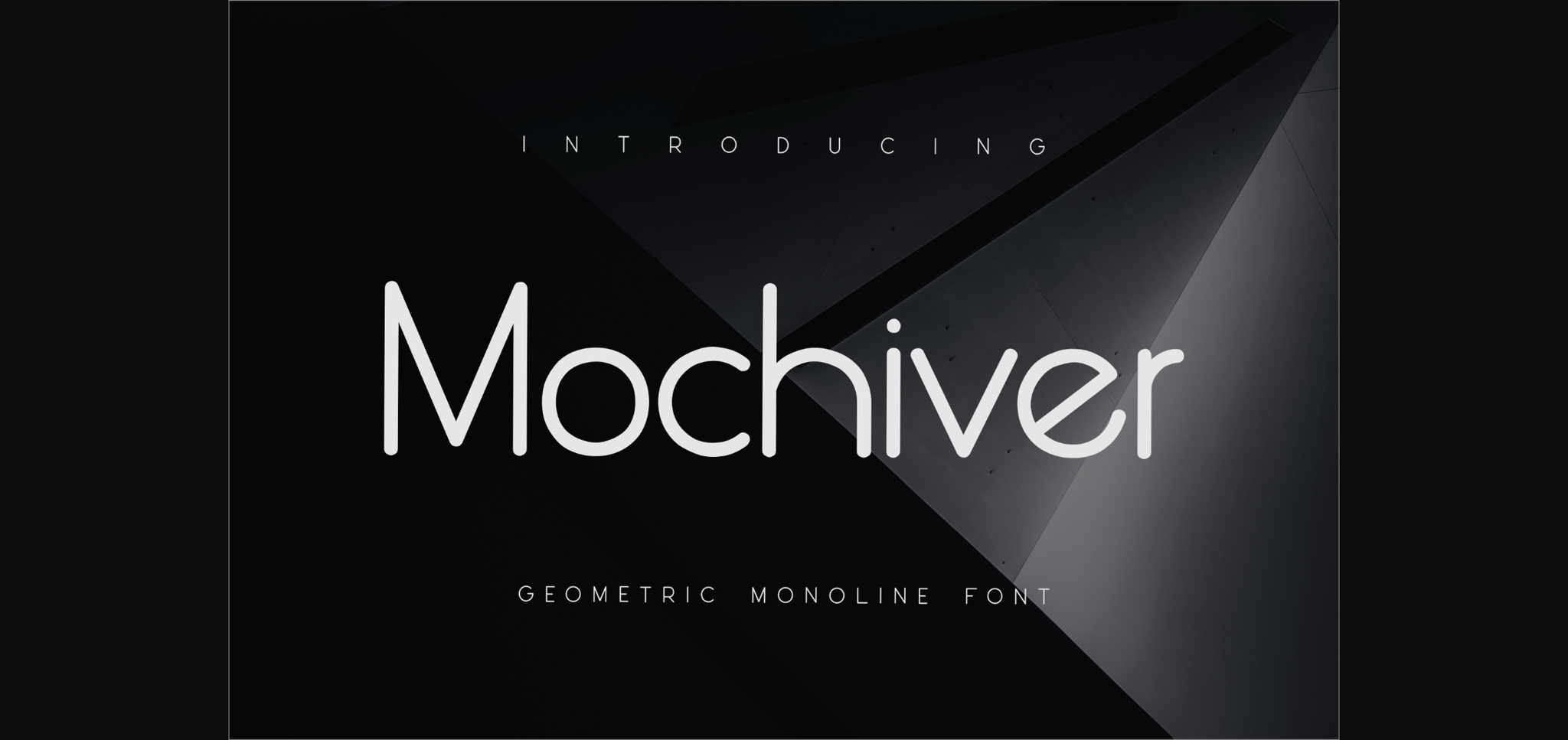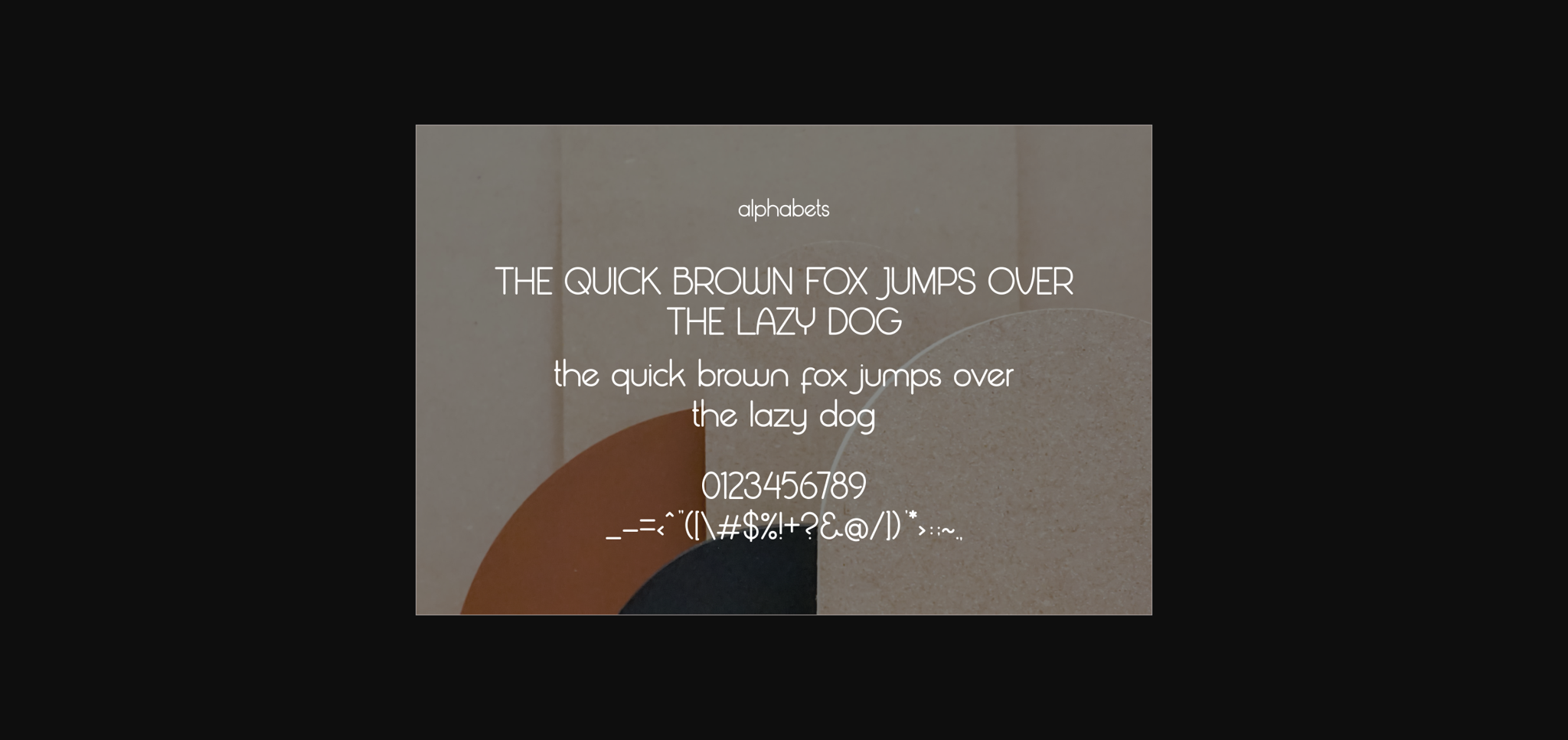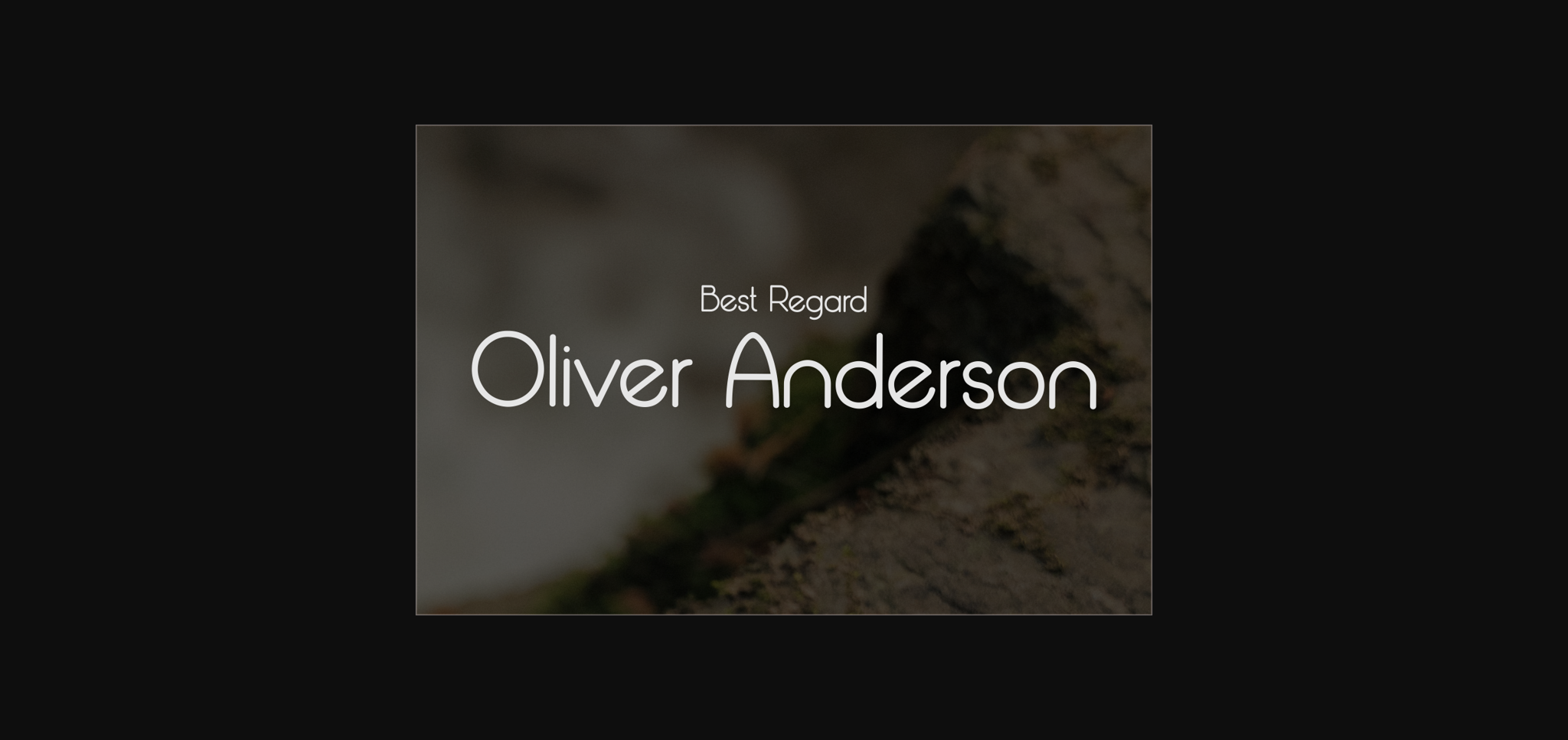
About Mochiver Font
Mochiver is a stylish and sleek sans serif font. It is the best choice for creating eye catching logos, branding and quotes. Every letter has a unique and beautiful touch, which will make your design come alive!